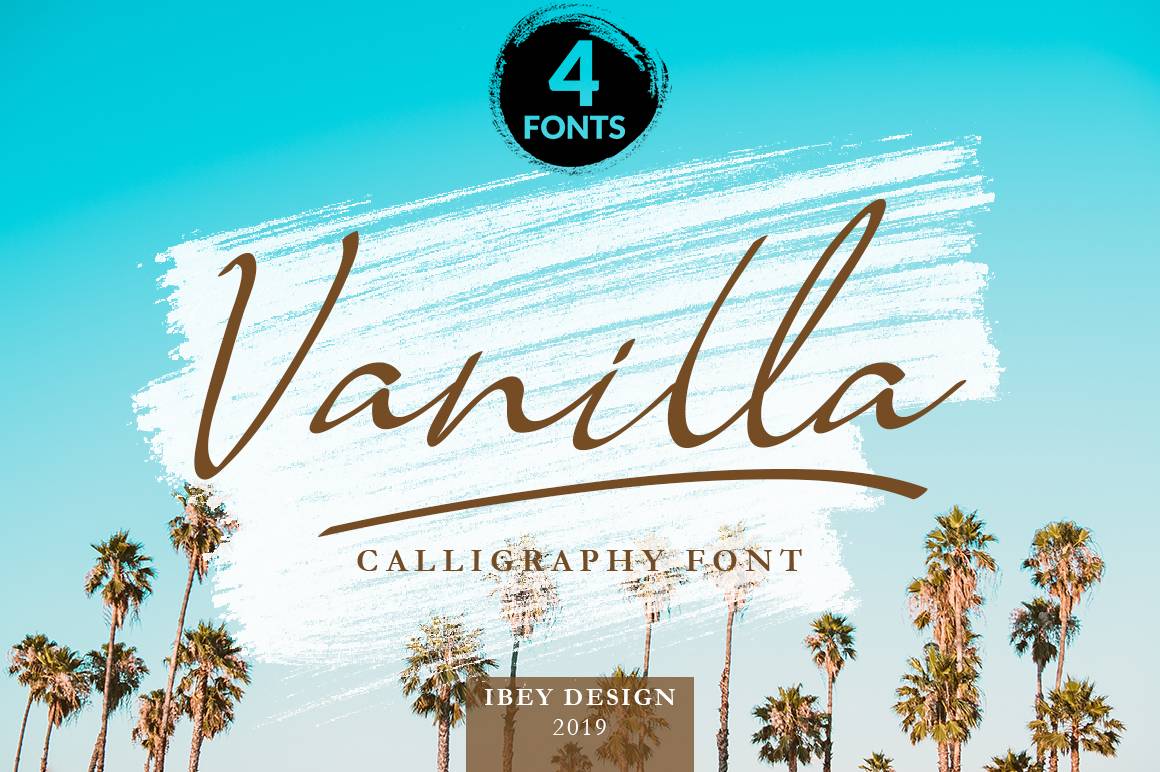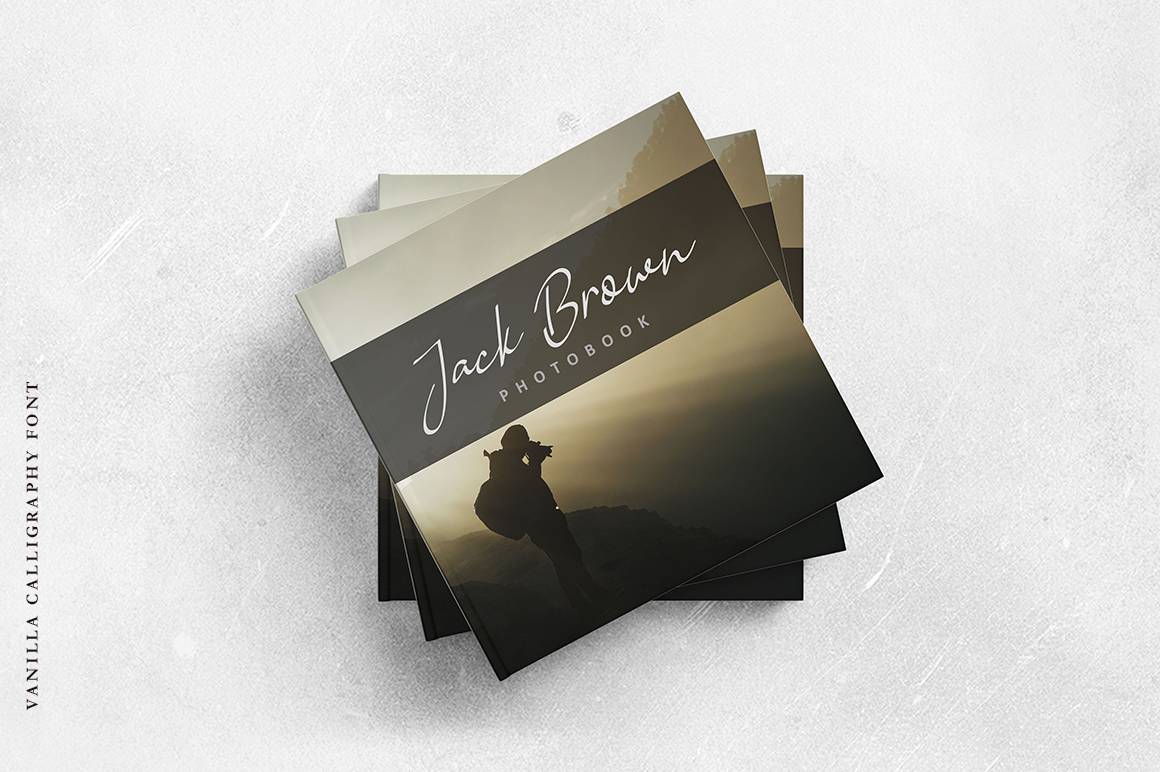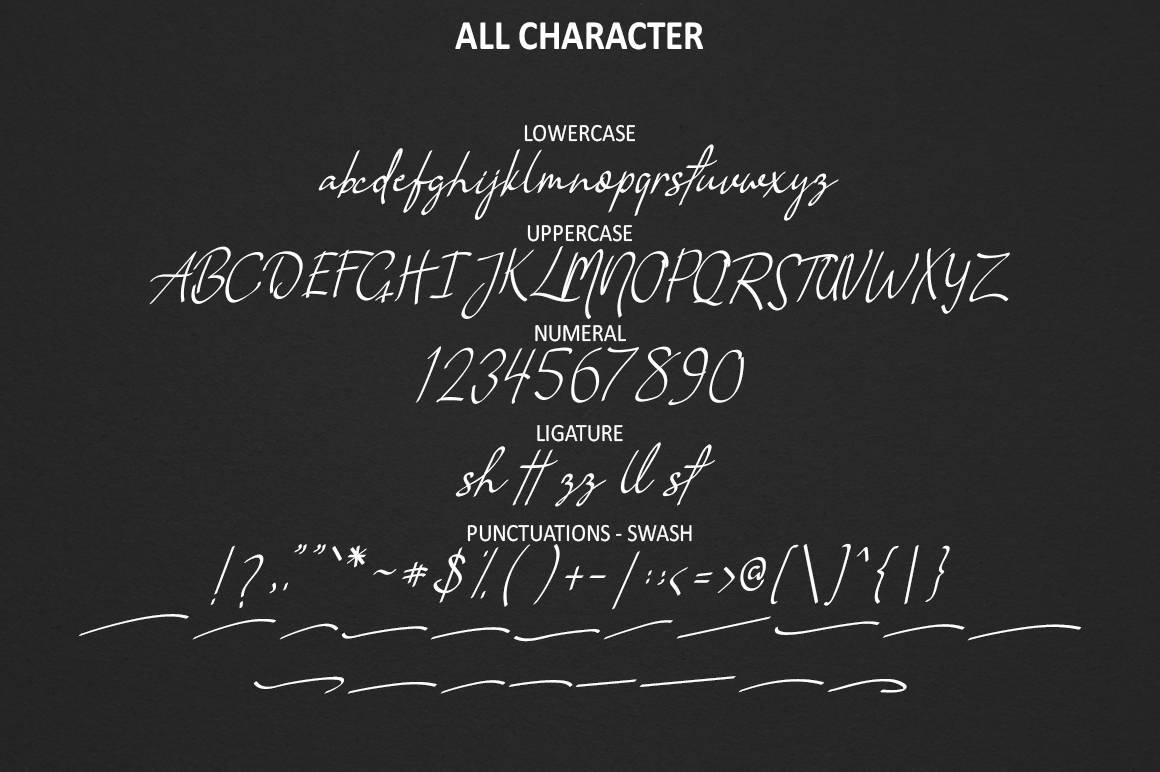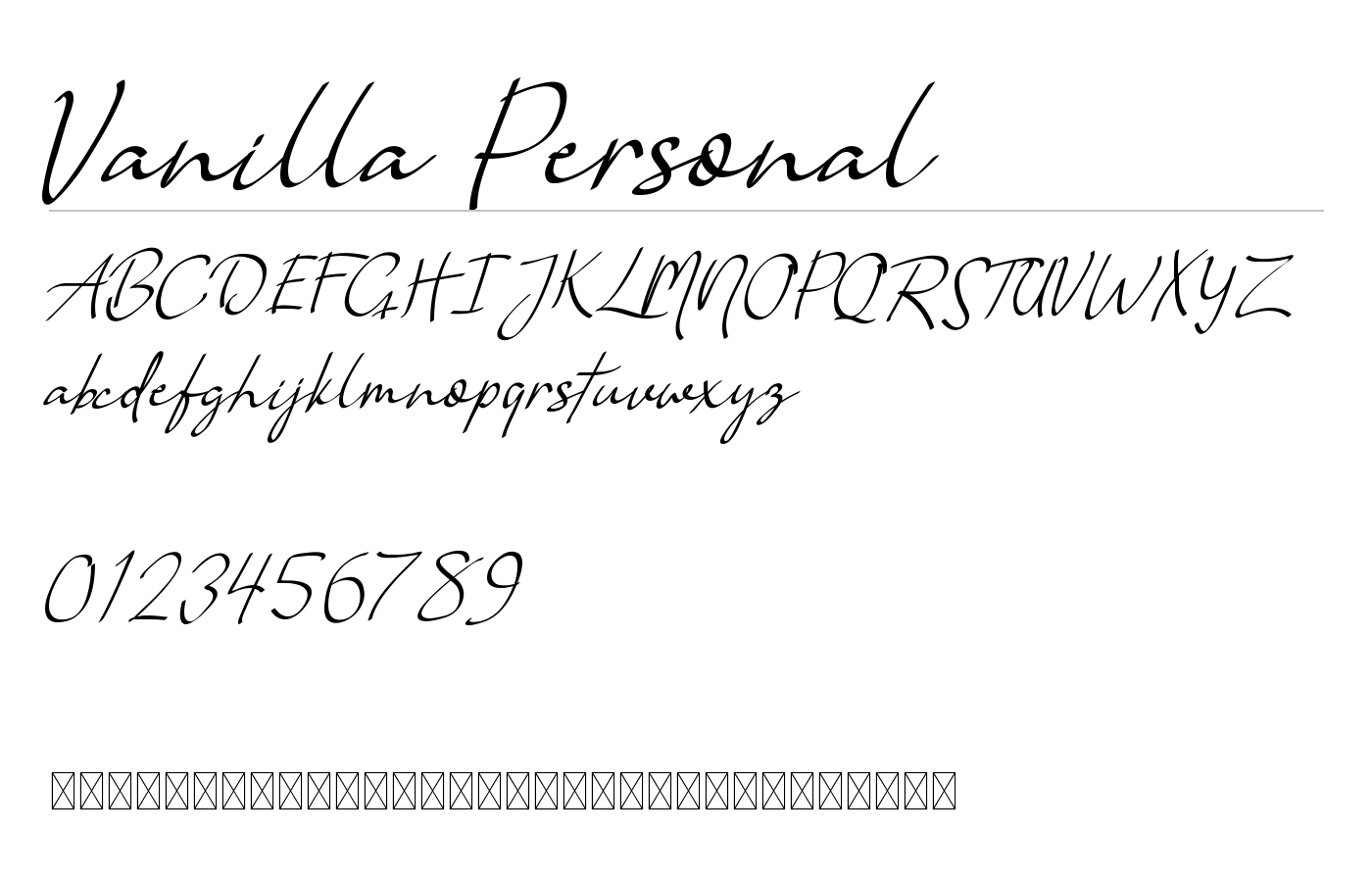
Vanilla Font is an elegant, slender script with a delicate, handwritten feel. Its flowing, slightly irregular strokes and moderate contrast give it a personal and sophisticated touch, making it ideal for invitations, branding, and stylish editorial use where a refined yet approachable look is desired. This font works beautifully in contexts that need a touch of grace and individuality without sacrificing readability.
Vanilla Font
About Vanilla Font
| Font family | Vanilla Font |
| Release date | 2019-02-19 |
| Designer | Ikrar Bey Khubaib |